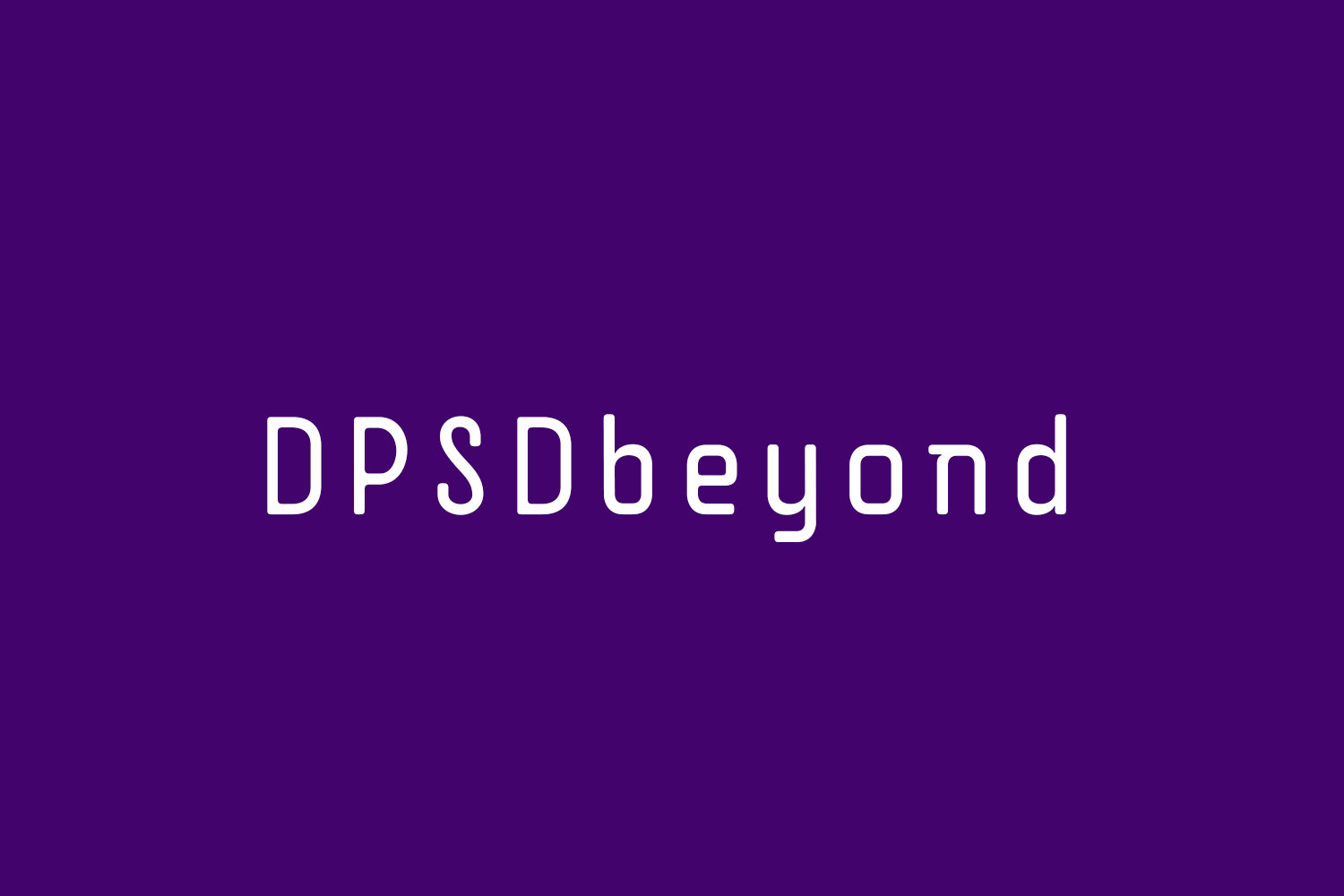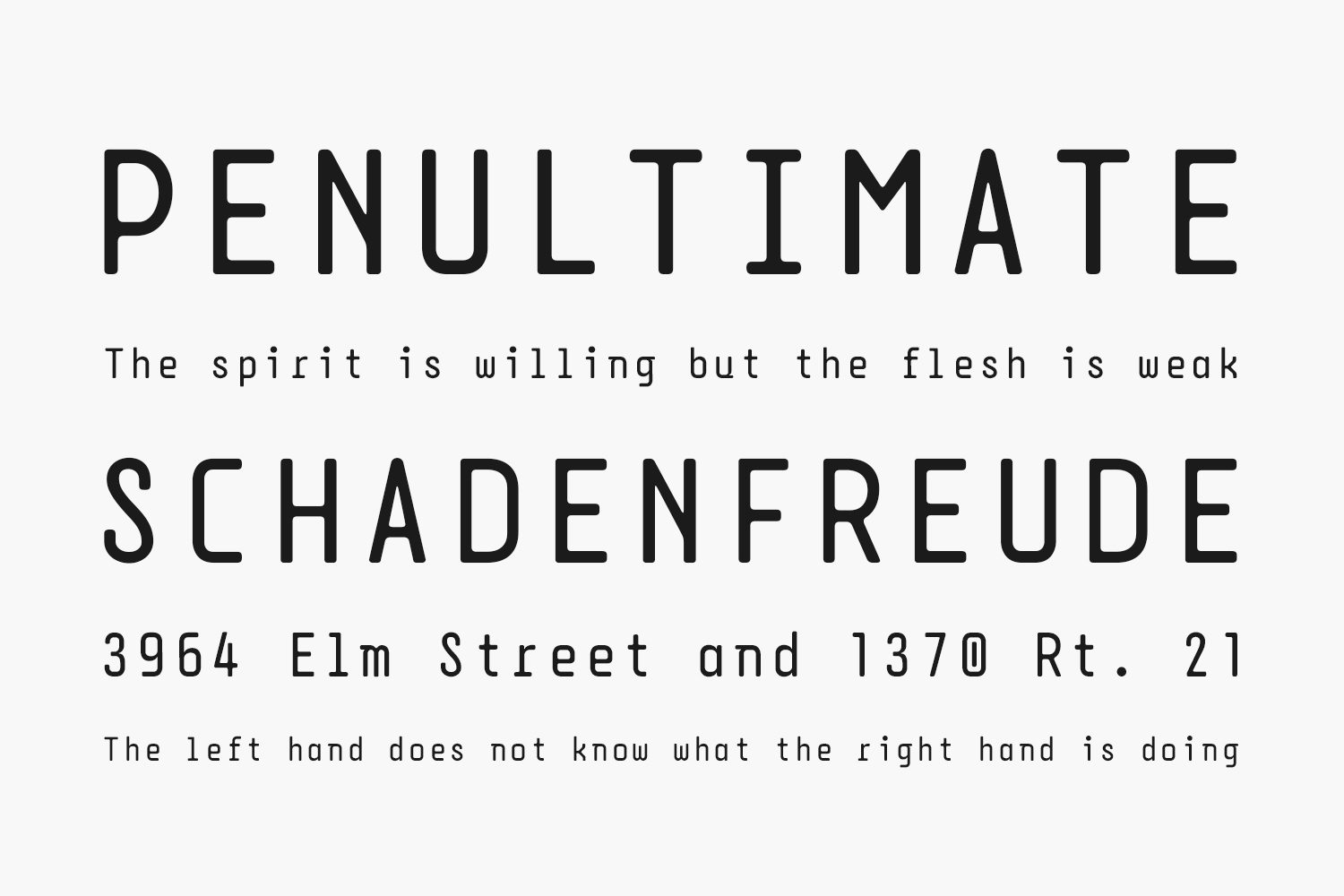
DPSDbeyond Free Font is the result of the attempt made by the students of the Department of Product and Systems Design Engineering (University of the Aegean) in Syros, to design a typeface in a collaborative way, during the short duration of a one-day workshop (that took place on the 12th of November).